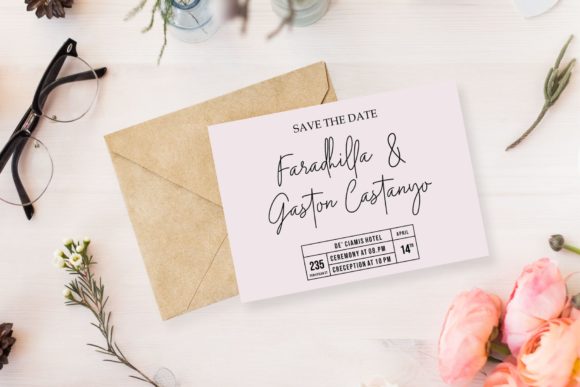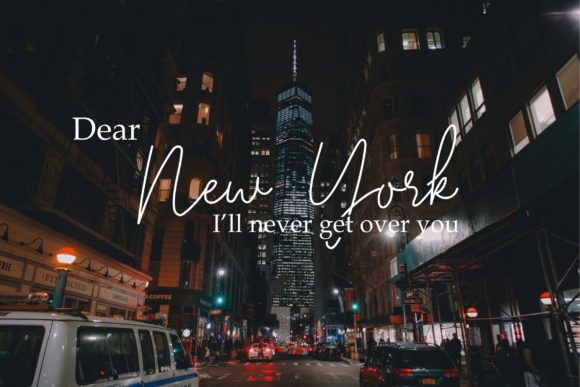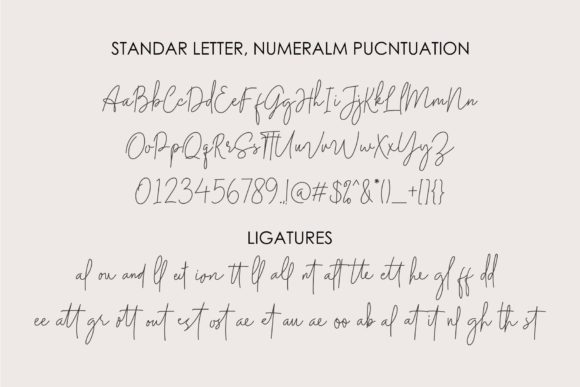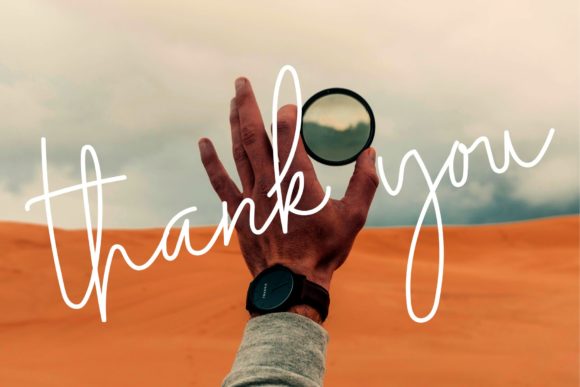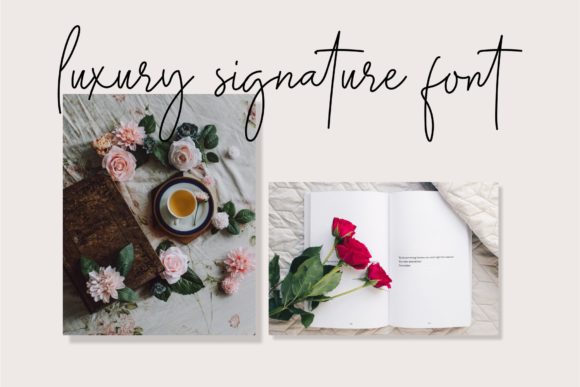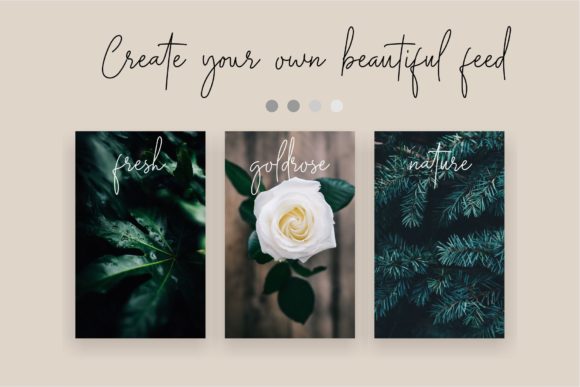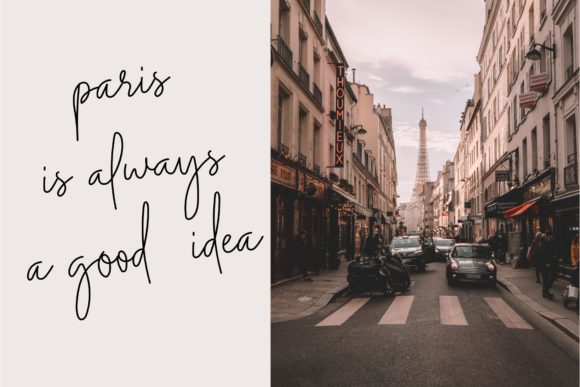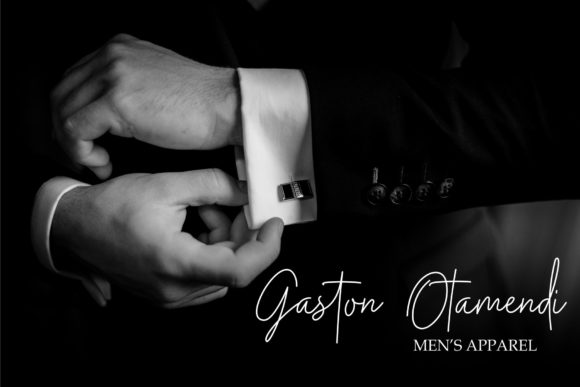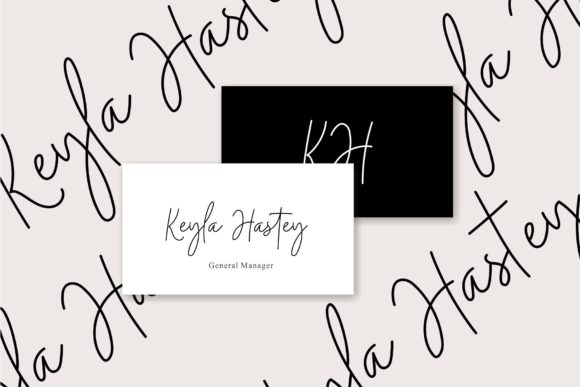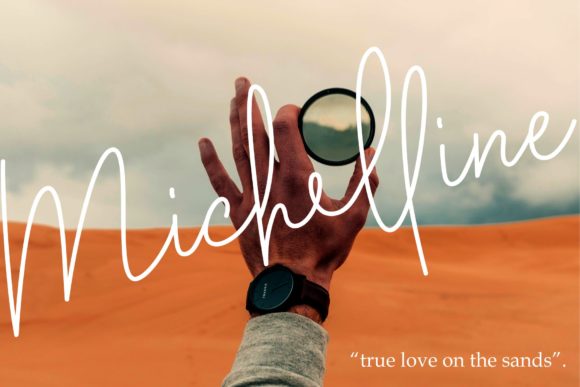
Midnight Siganture Font
About Midnight Siganture Font
‘Midnight Signature’ is a handwritten signature script with a natural & stylish flow. It’s the perfect font for adding an authentic touch to any design project.